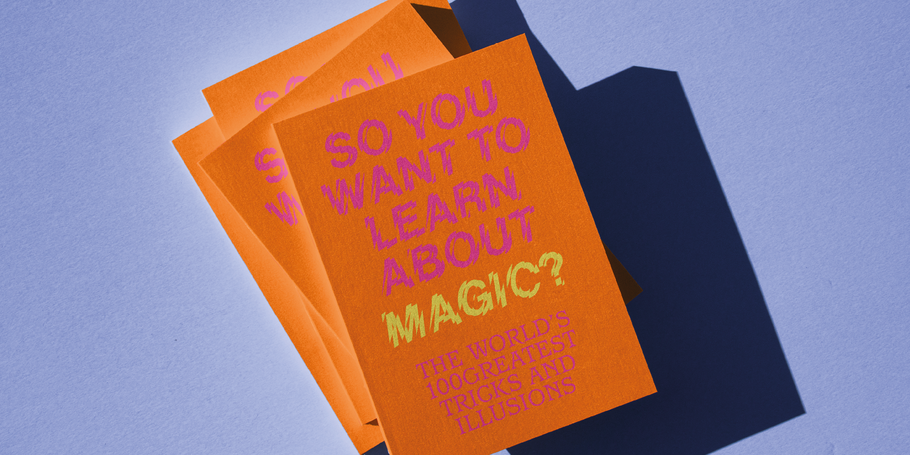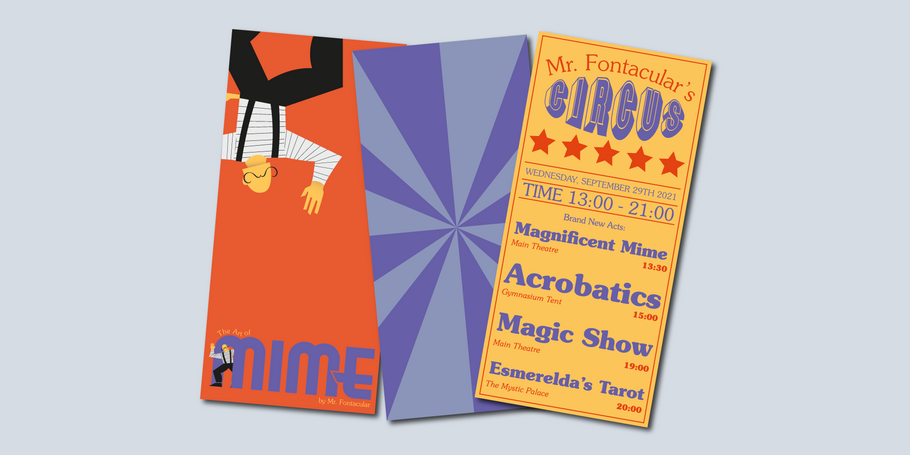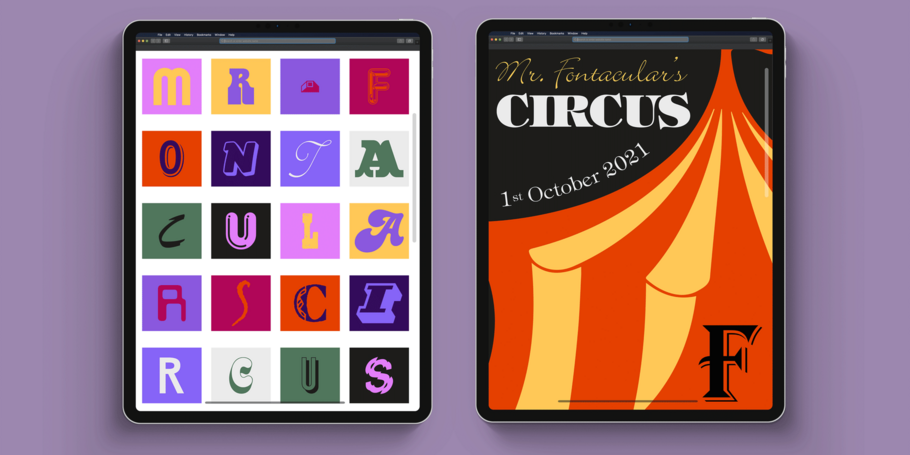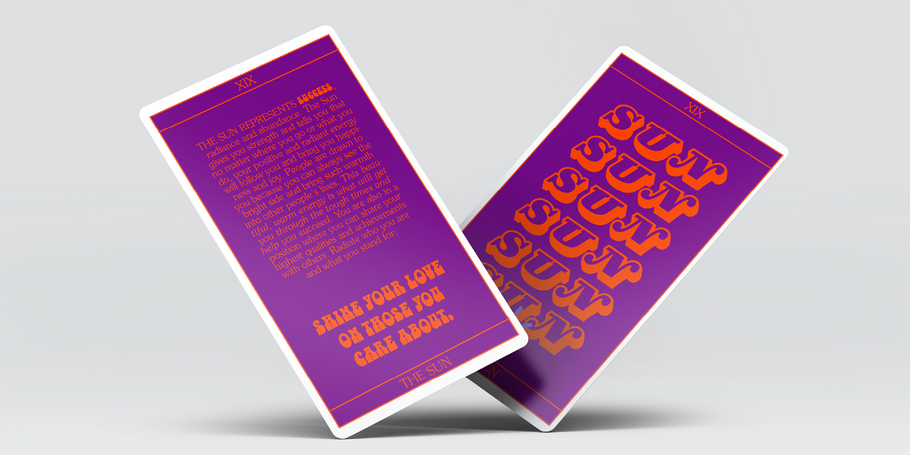
Monotype — Fortune Teller Bundle
Step right up, step right up! The typefaces in this collection will amaze and inspire with designs both wondrous and strange, uncanny and mystical. These feats of design strength include Westside, a Western-inspired gunslinger of a typeface; the bubbly, charming creature of the deep known as Octopuss; and that mysterious, interdimensional entity we call Shatter. Taken together, the designs included here offer a range of exuberant, expressive voices for designers to explore—if you’ve got what it takes, that is. Get the full pack for only $49 and get the fun started today! You got it — that’s 47 fonts across 31 families, and is available for just $49.